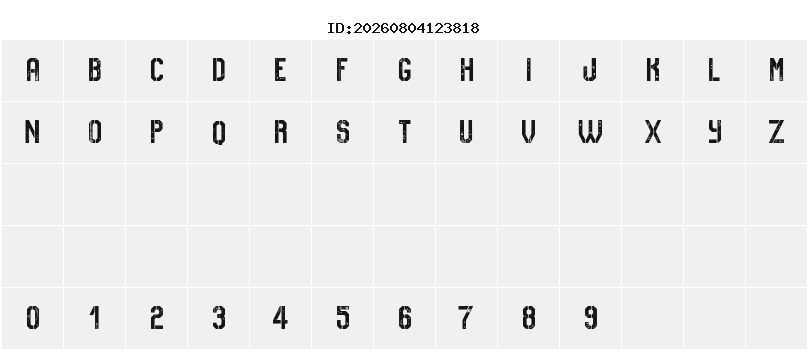
• Font Name: No Safety Zone
• Designer: IMAGEX
No Safety Zone.ttf is a modern, elegant sans-serif font designed for ultimate readability and visual harmony. Perfect for branding, headlines, web design, and print materials.